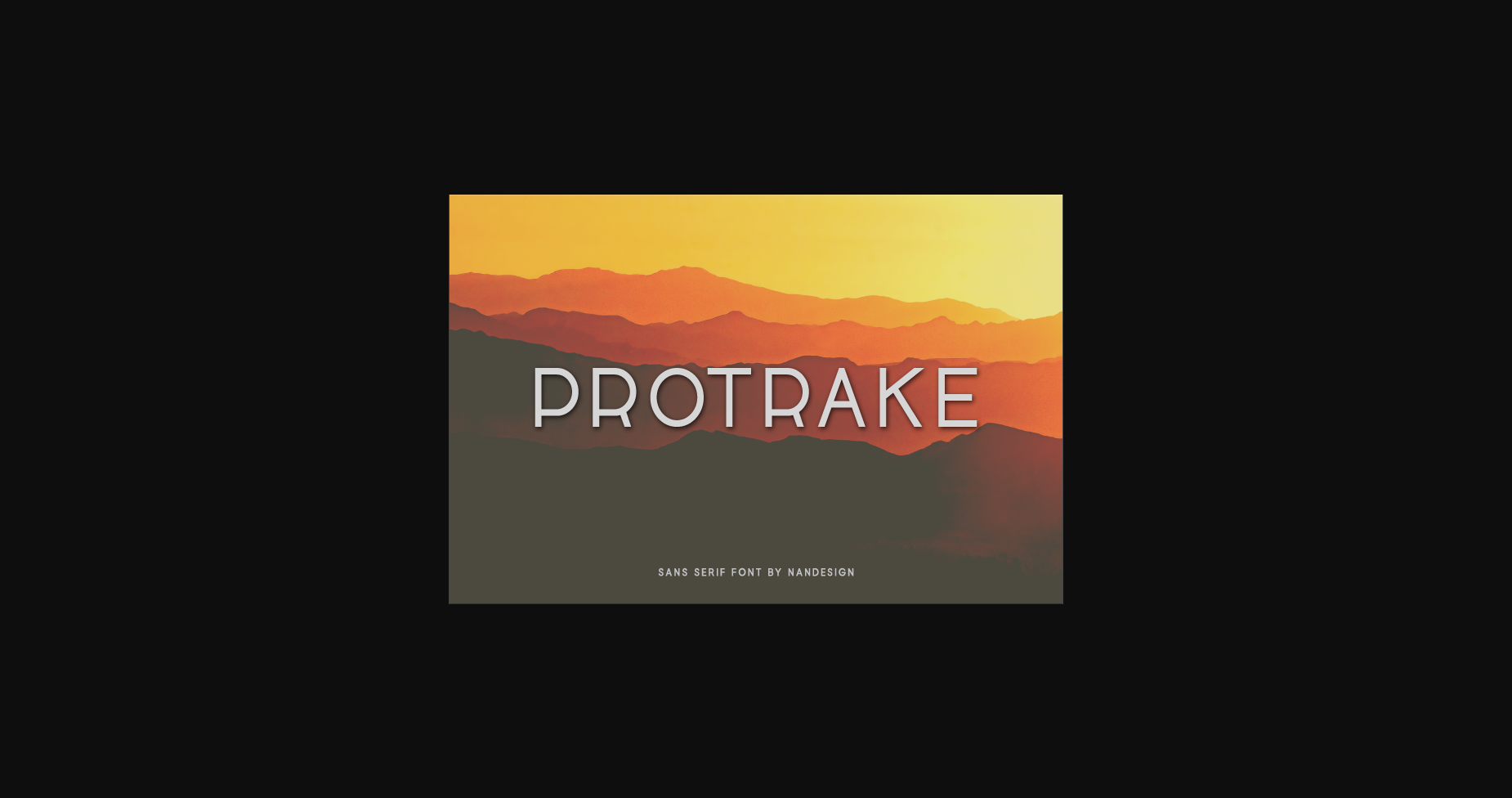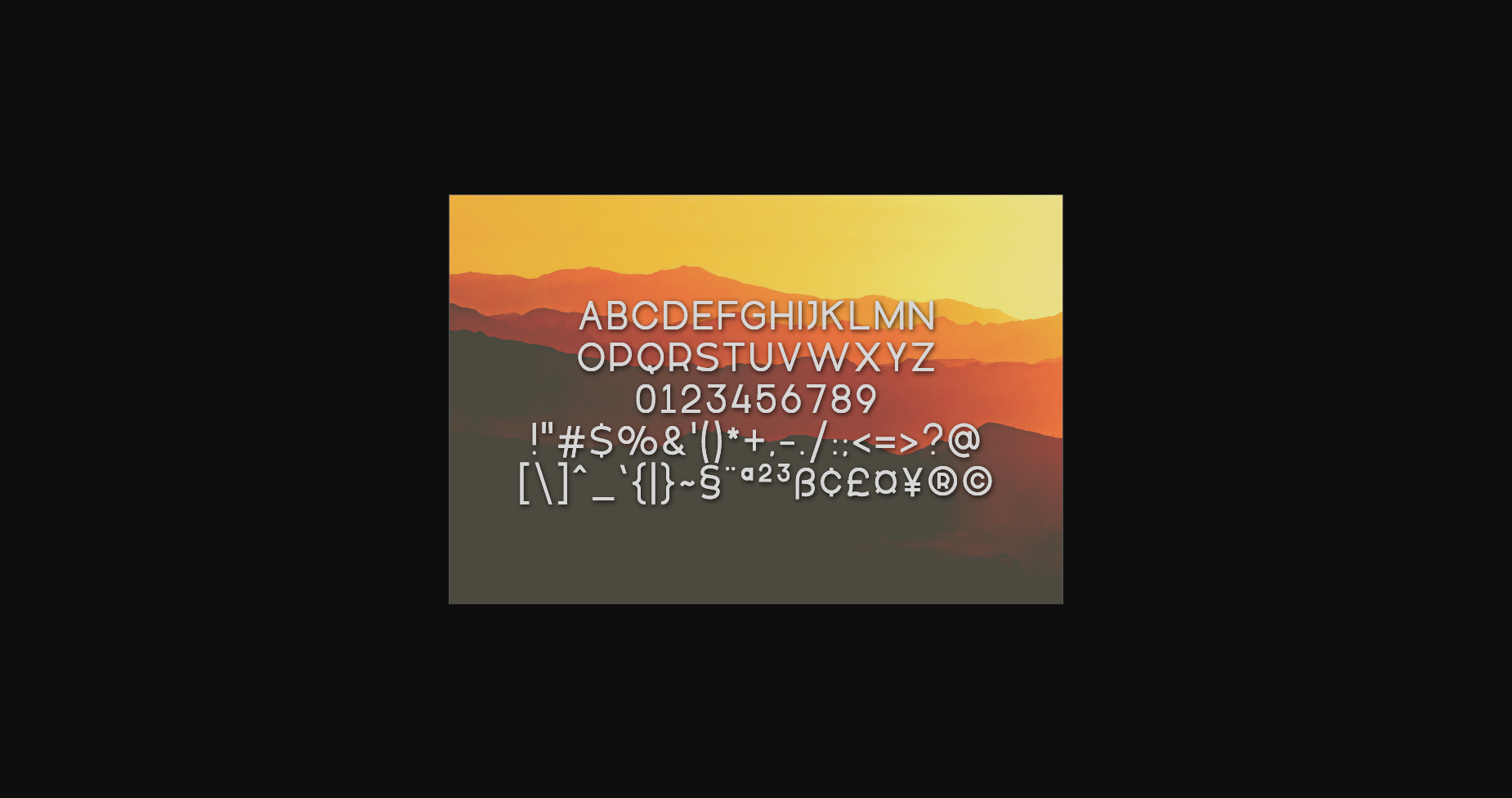
Protrake is an authentic and neat sans serif font. It can easily be matched to an incredibly large set of projects, so add it to your creative ideas and notice how it makes them stand out!